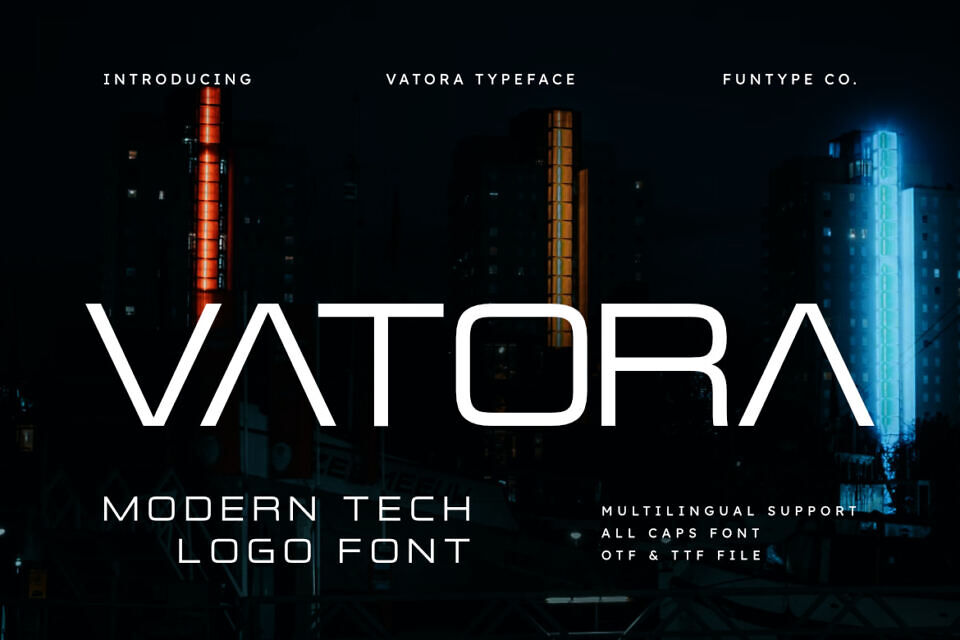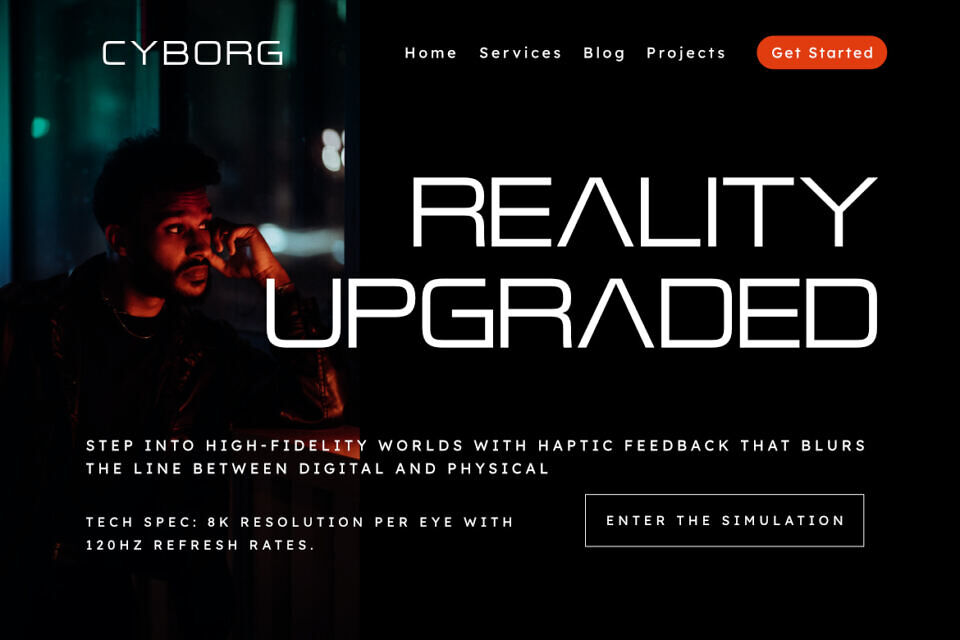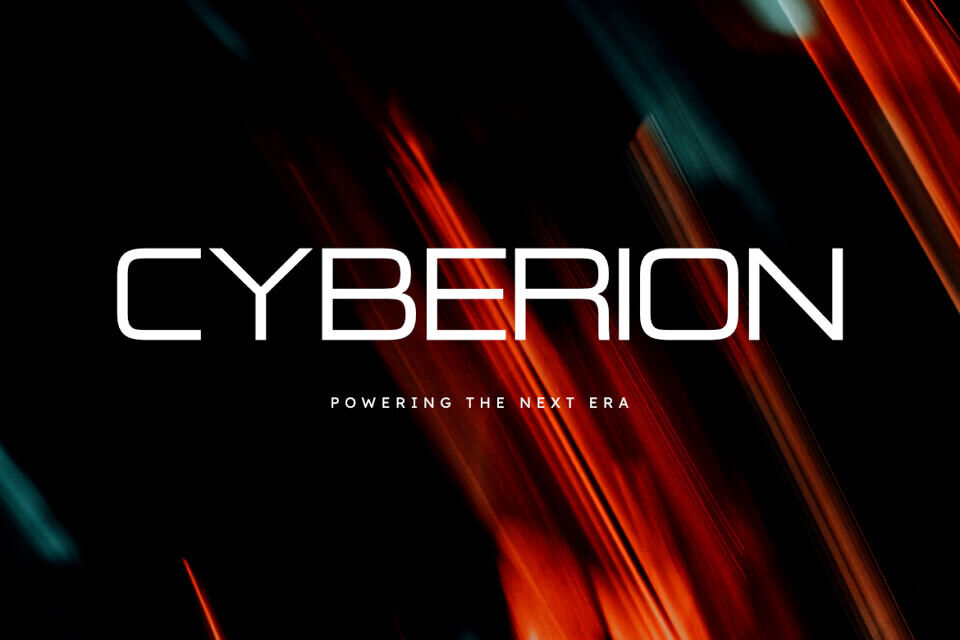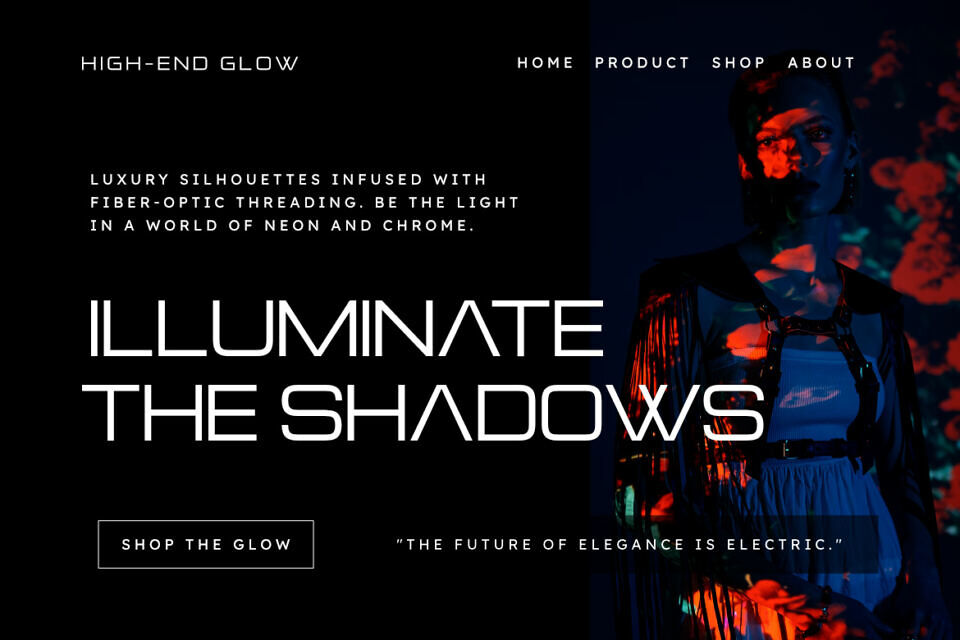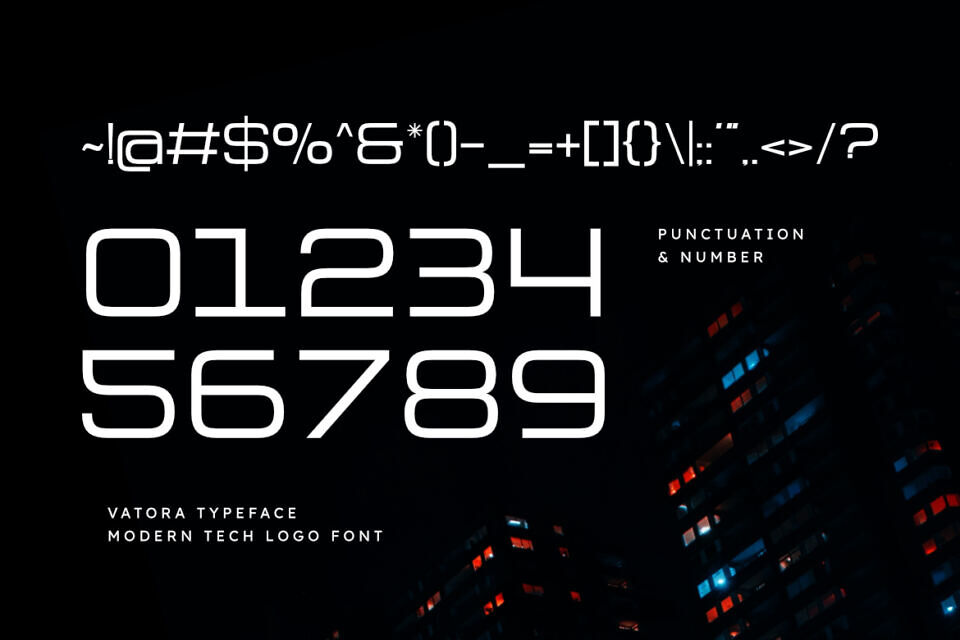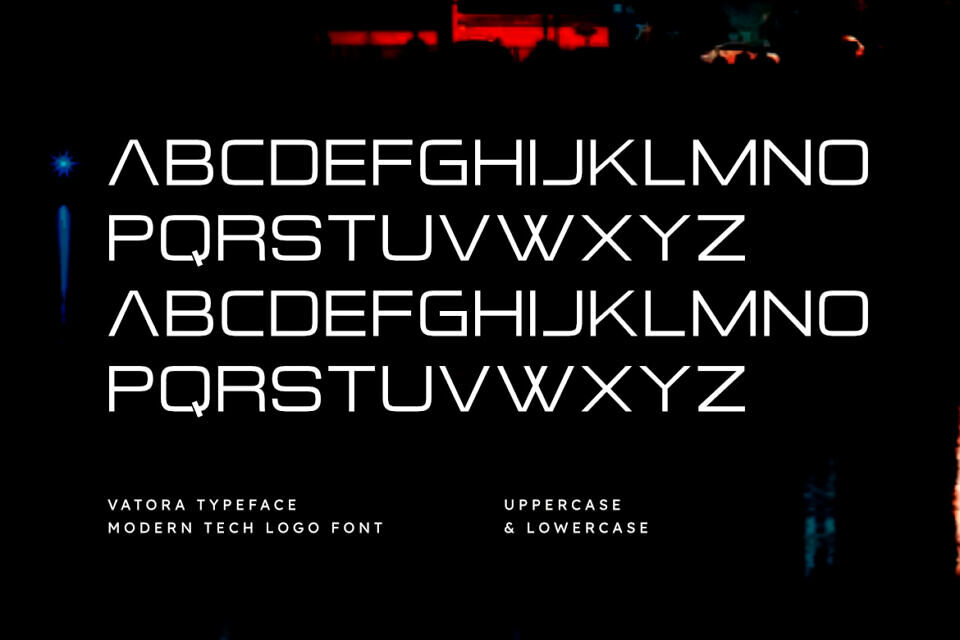
Vatora Font
Vatora is a sophisticated and powerful modern tech logo font, thoughtfully designed to capture the essence of digital innovation and contemporary storytelling. With its wide, geometric structure and clean minimalist lines, Vatora offers a professional aesthetic that brings a touch of futuristic authority to any creative project.
Whether you are crafting a striking technology brand identity, a sleek startup logo, or bold editorial layouts, Vatora provides a seamless blend of modern edge and high-tech power.